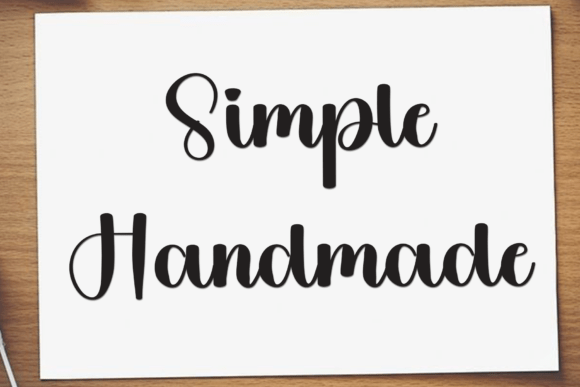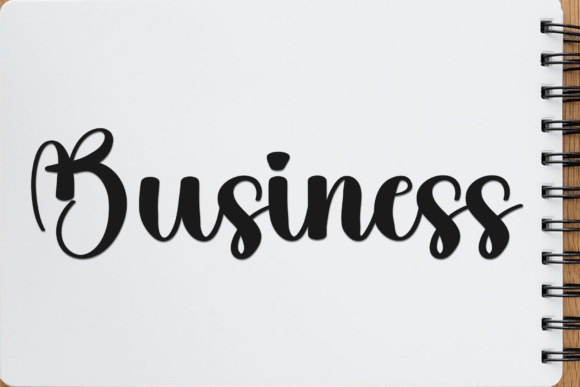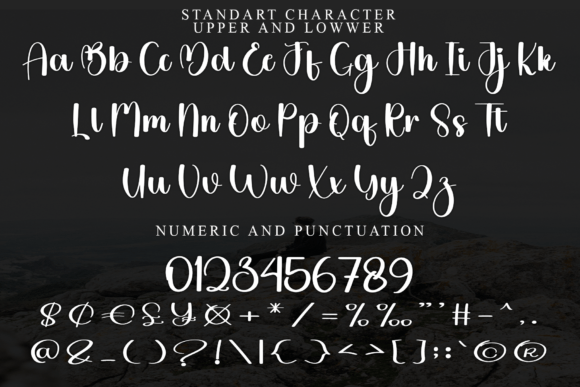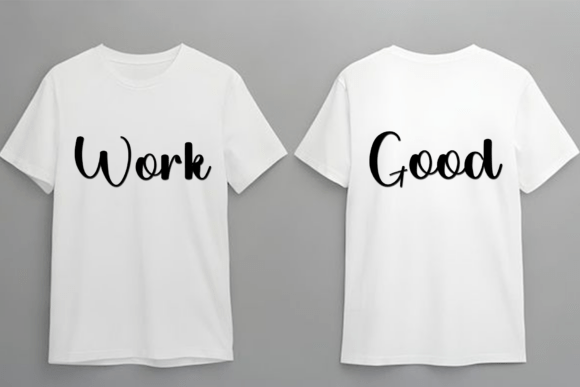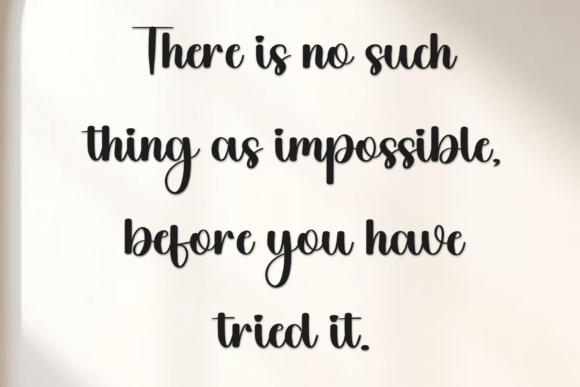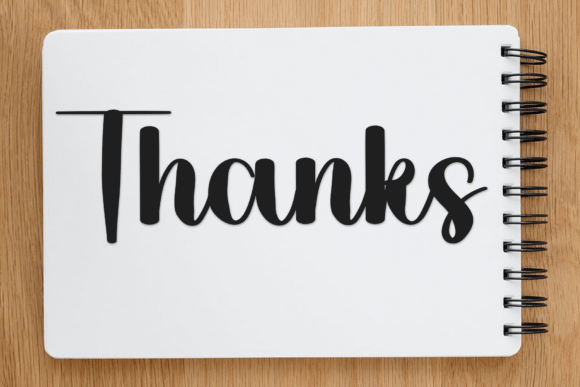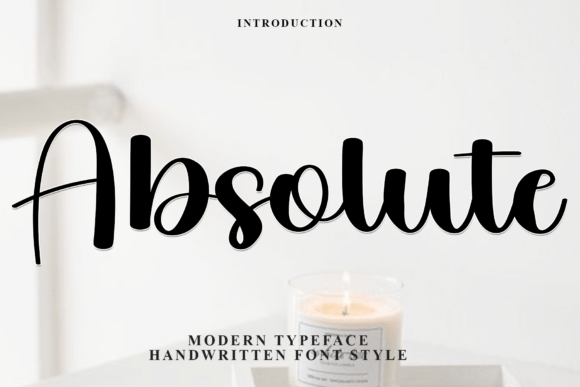
The Magic of Absolute Font: A Festive Holiday Companion
It’s that time of the year again – the season of joy, giving, and endless design projects. I still remember the year I was tasked with creating a festive holiday card for a client’s family. I spent hours scrolling through font libraries, searching for the perfect typeface that would capture the spirit of the season. That’s when I stumbled upon Absolute Font, a decorative and merry font that instantly brought my design to life. In this article, I’ll share my experience with Absolute Font, its features, and how to make the most of it in your designs.
An Honest Review of Absolute Font
- ✨ Festive and Whimsical Design: Absolute Font is specifically crafted to bring a touch of magic to your holiday designs. Its decorative elements and playful flair make it perfect for creating enchanting greeting cards, gift tags, and holiday-themed projects.
- ✅ PUA Encoding for Easy Access: This font is PUA encoded, which means you can easily access all the amazing glyphs and ligatures without any hassle. This feature is a game-changer for designers who want to add a personal touch to their work.
- 🎉 Versatility: Whether you’re working on a digital project or a print design, Absolute Font adapts seamlessly to different mediums and styles.
While Absolute Font is a fantastic addition to any designer’s toolkit, there are a few minor considerations to keep in mind:
- ⚠️ Legibility at Small Sizes: Like many decorative fonts, Absolute Font may lose legibility when used at very small sizes. It’s best used at larger sizes where its details can shine.
- 🤔 Limited Use Outside of Holiday Themes: While versatile, Absolute Font is specifically designed for festive themes. It might not be the best choice for non-holiday projects unless you’re looking to add a whimsical touch.
The Backstory of Absolute Font
Absolute Font was inspired by the magical atmosphere of winter festivals around the world. Its creator aimed to bottle the essence of holiday cheer into a typeface that would make any design feel festive and inviting. Whether you’re a professional designer or a creative hobbyist, Absolute Font brings a touch of whimsy and wonder to your projects.
Q: Does Absolute Font include a range of characters and symbols?
A: Yes, Absolute Font includes a wide range of characters, symbols, glyphs, and ligatures, thanks to its PUA encoding.